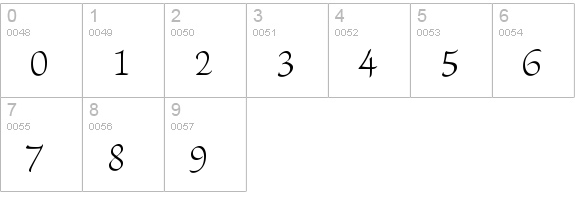
Brioso Pro Light is a refined, elegant variant in the Brioso typeface family \xE2\x80\x94 well suited to elegant body text, refined sub-headings, and luxury branding.
Brioso Pro Light font is a graceful and elegant typeface that exudes sophistication and modernity. With its delicate serifs and sleek lines, Brioso Pro Light is perfect for adding a touch of refinement to your design projects. Whether you're creating a stylish logo, elegant invitations, or sophisticated branding materials, this font is sure to elevate your work to the next level. And the best part is that Brioso Pro Light font is completely free to download at FontsMarket.com. Simply visit the website and get instant access to this beautiful typeface at no cost. Don't miss out on the opportunity to enhance your designs with the timeless beauty of Brioso Pro Light font today!